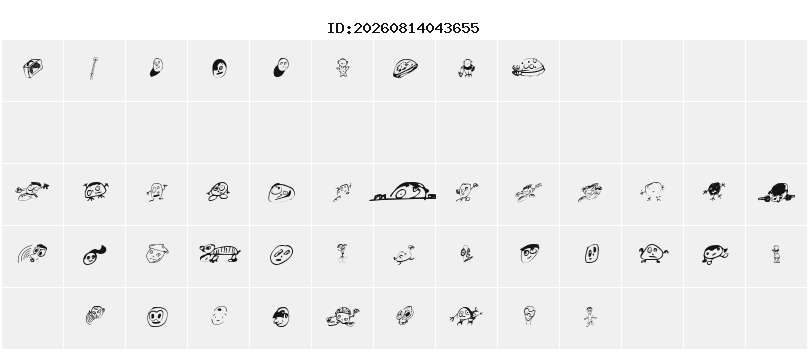
Swatbats 1 Preview
• Font Name: Swatbats 1
• Full Font Name: Swatbats 1
• Designer: Johnw
• Manufacturer: bionic type
• Description: Lots of little critters to use for stuff. This font is free. Please distribute freely.
About Swatbats 1.ttf